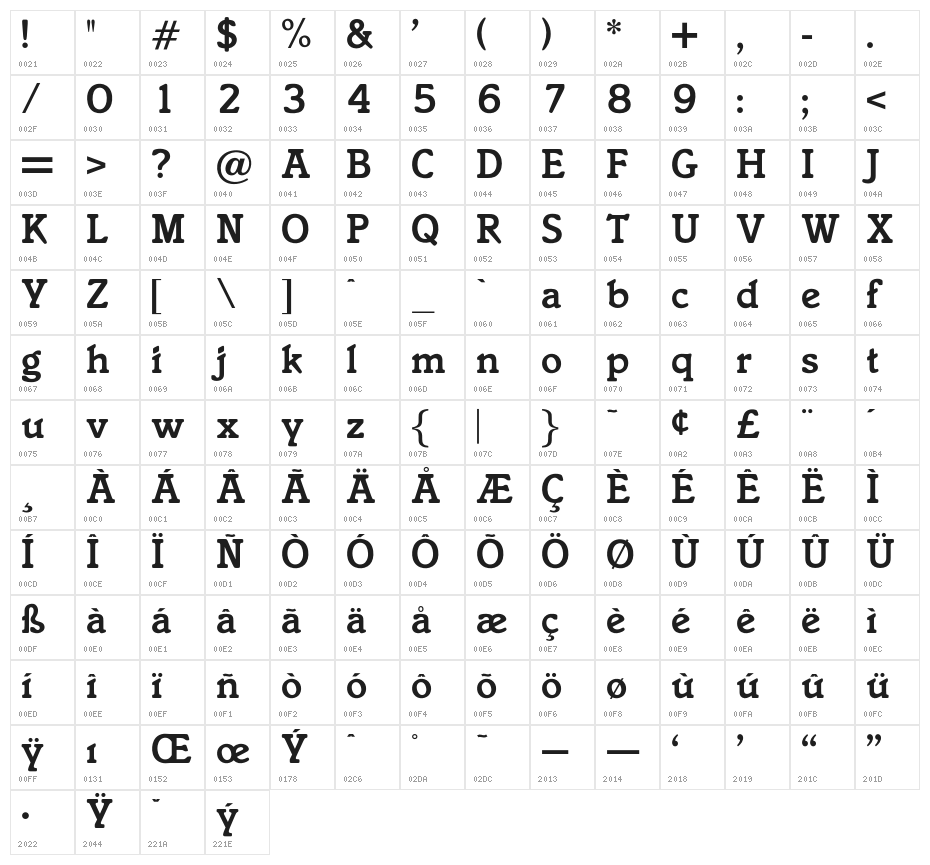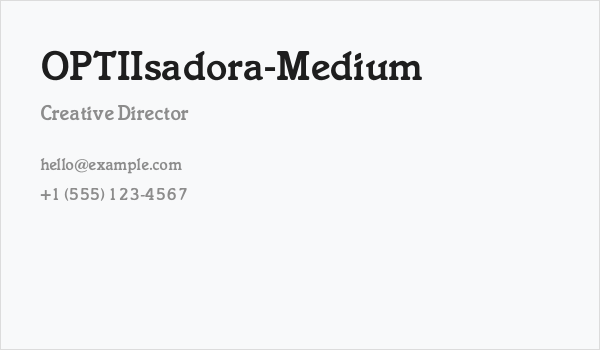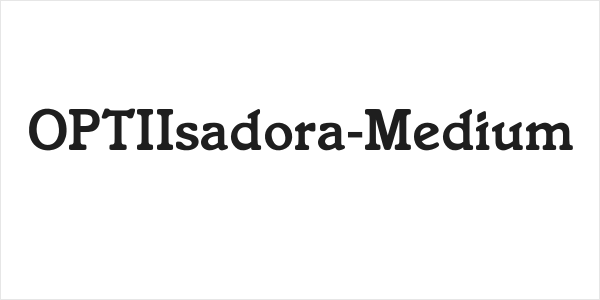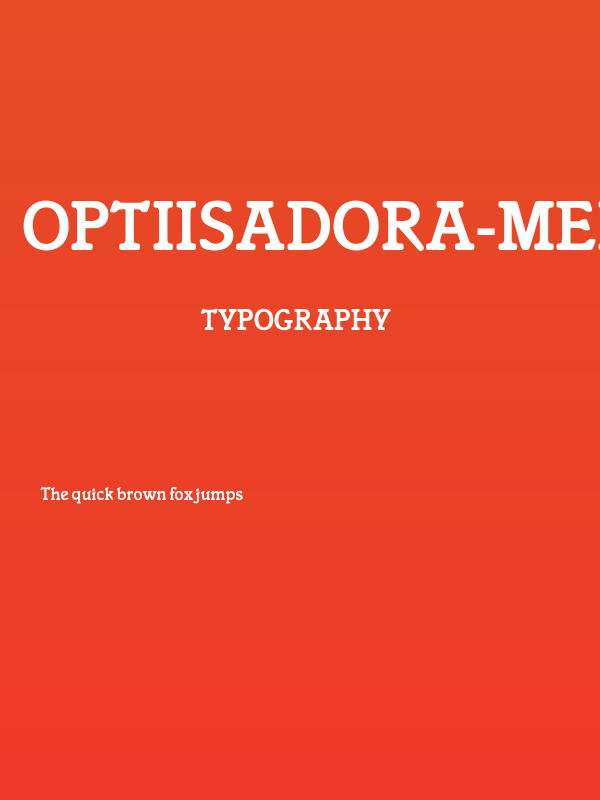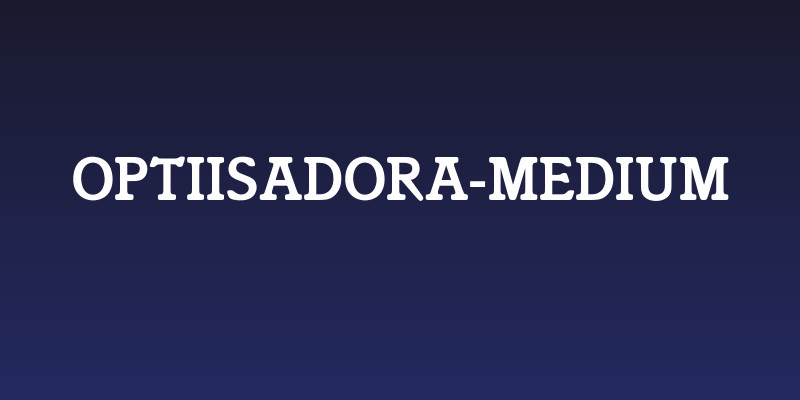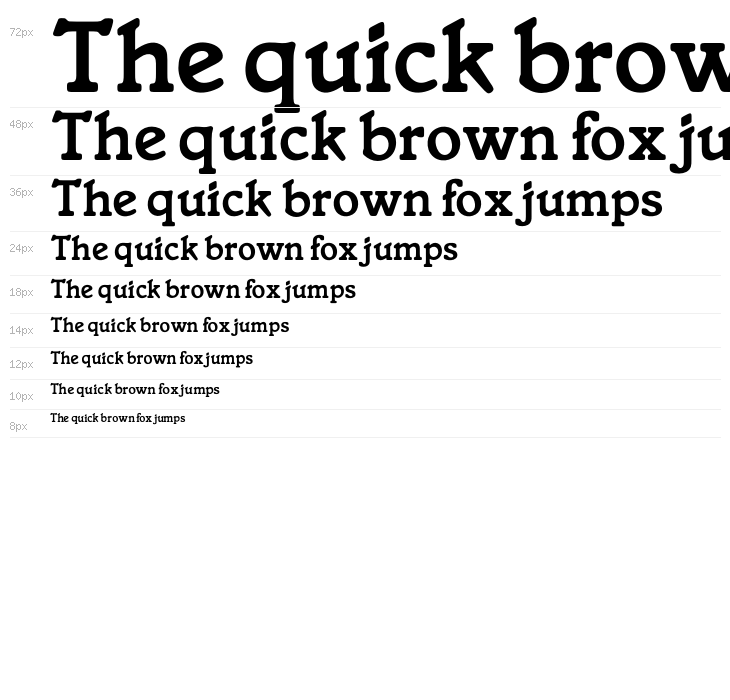
OPTIIsadora-Medium Font
OPTIIsadora-Medium Description
This font exhibits a classic serif style with a medium weight, characterized by its bold and robust appearance. The serifs are pronounced, adding a touch of elegance and tradition to the typeface. The uppercase letters are strong and commanding, while the lowercase letters maintain a consistent and harmonious flow. The numerals are clear and easily distinguishable, making them suitable for various applications. The special characters are well-integrated, ensuring versatility in design. Overall, this font combines traditional serif elements with a modern twist, making it suitable for both formal and contemporary projects.
| Proposed Projects | Ideal for editorial design, book covers, formal invitations, and branding that requires a touch of elegance. |